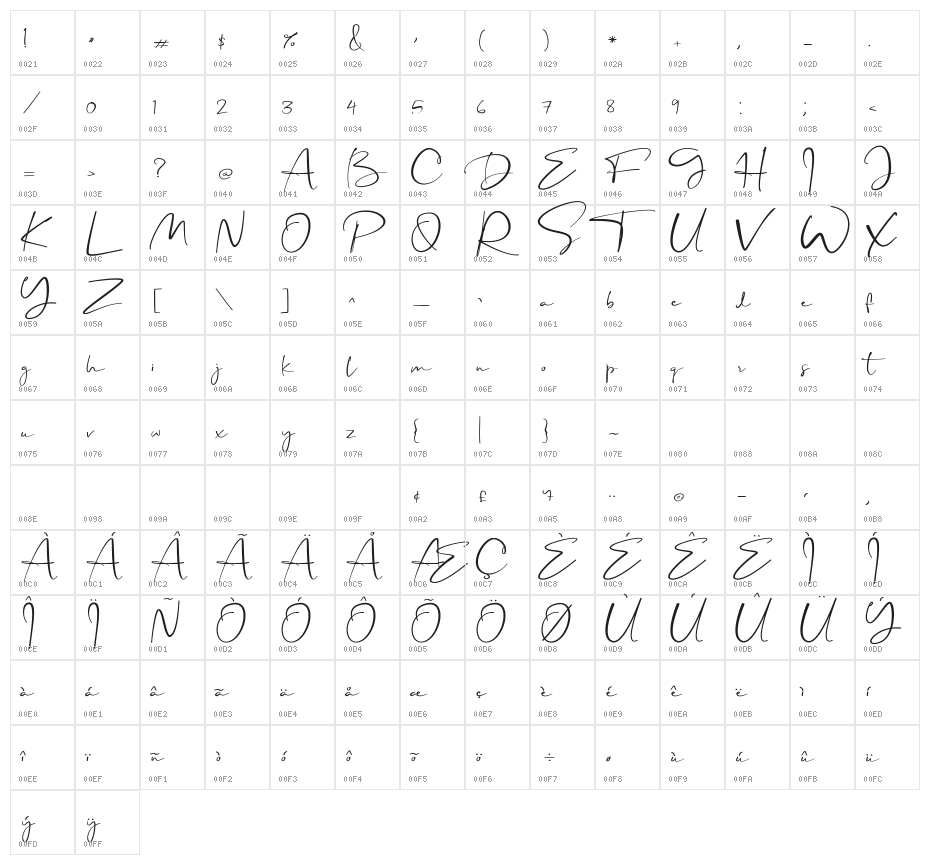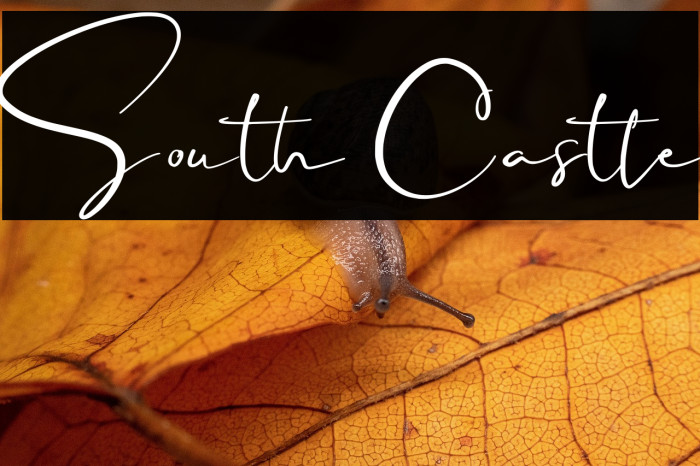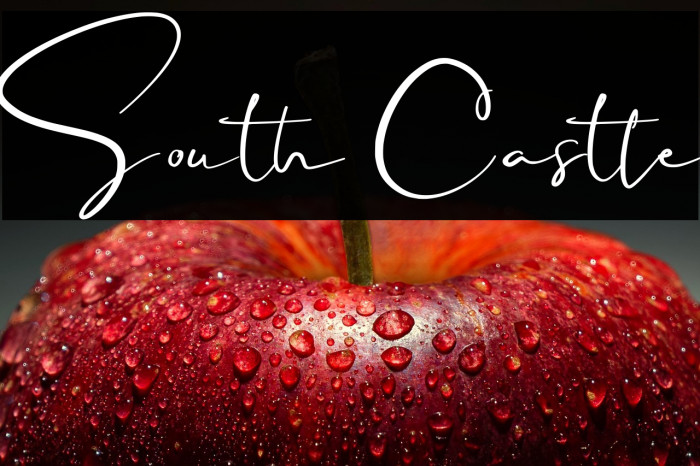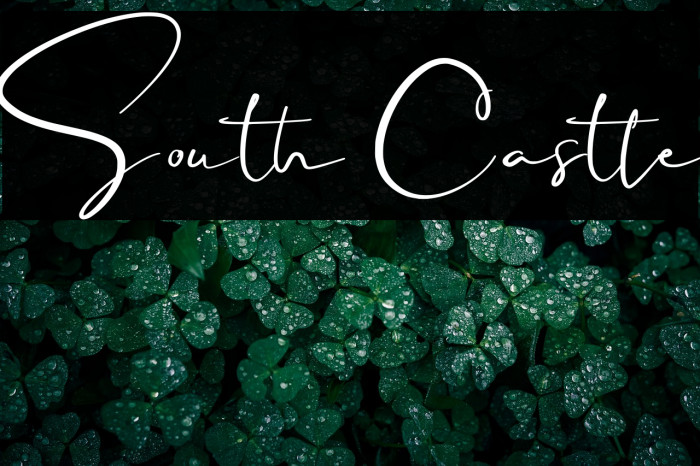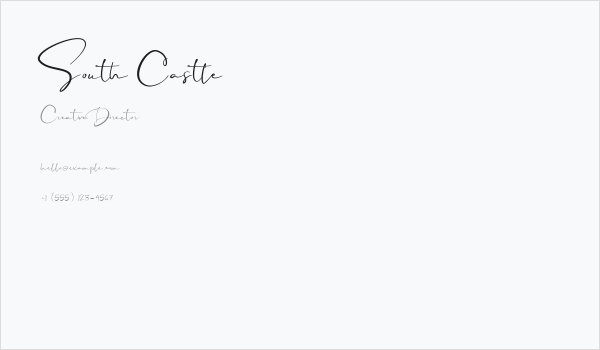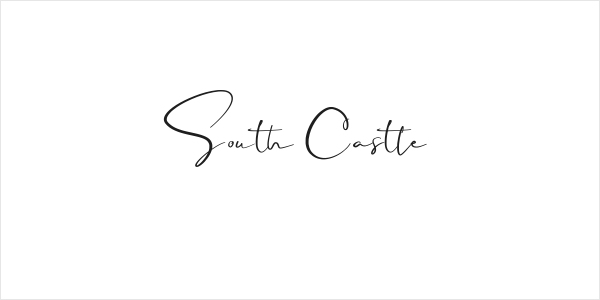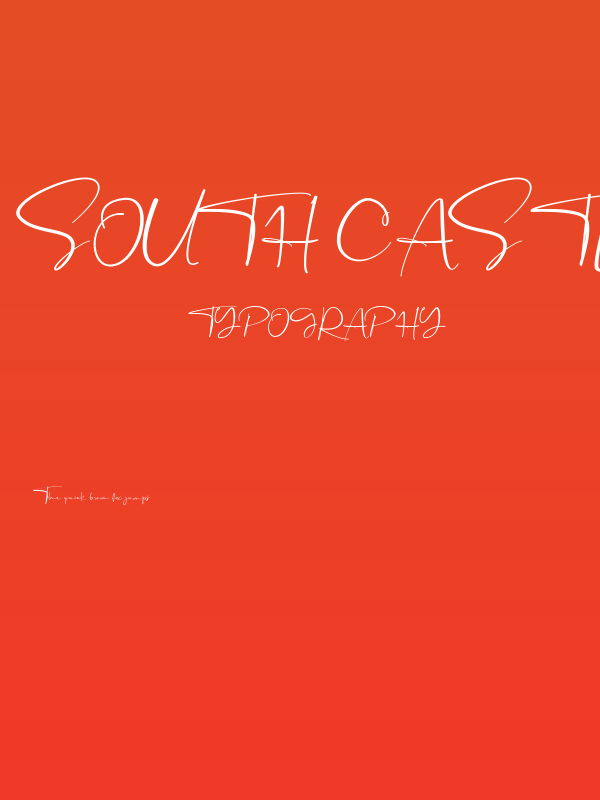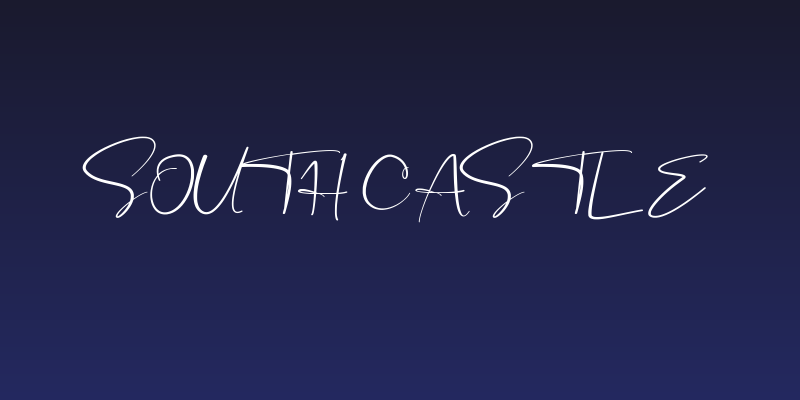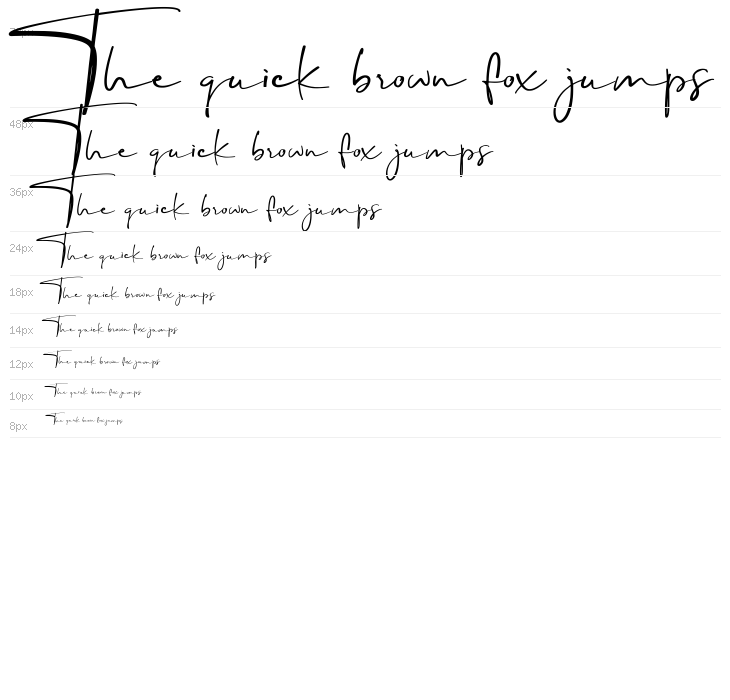
South Castle Font
South Castle Description
This font exhibits a fluid and elegant handwritten style, characterized by its smooth, flowing lines and natural, organic curves. Each letter is crafted with a sense of movement, giving the text a dynamic and lively appearance. The uppercase letters are bold and expressive, while the lowercase letters maintain a consistent, graceful form. The numerals and special characters are designed to complement the overall aesthetic, ensuring a cohesive look across all text. The font's unique style makes it suitable for creative and artistic projects, where a personal touch is desired.
| Proposed Projects | Ideal for wedding invitations, greeting cards, personal branding, and artistic projects. |